JTD Typewriter №1: Enfilade. 4 Optical Sizes, 15 Fonts
NEWEST RELEASE: ENFILADE
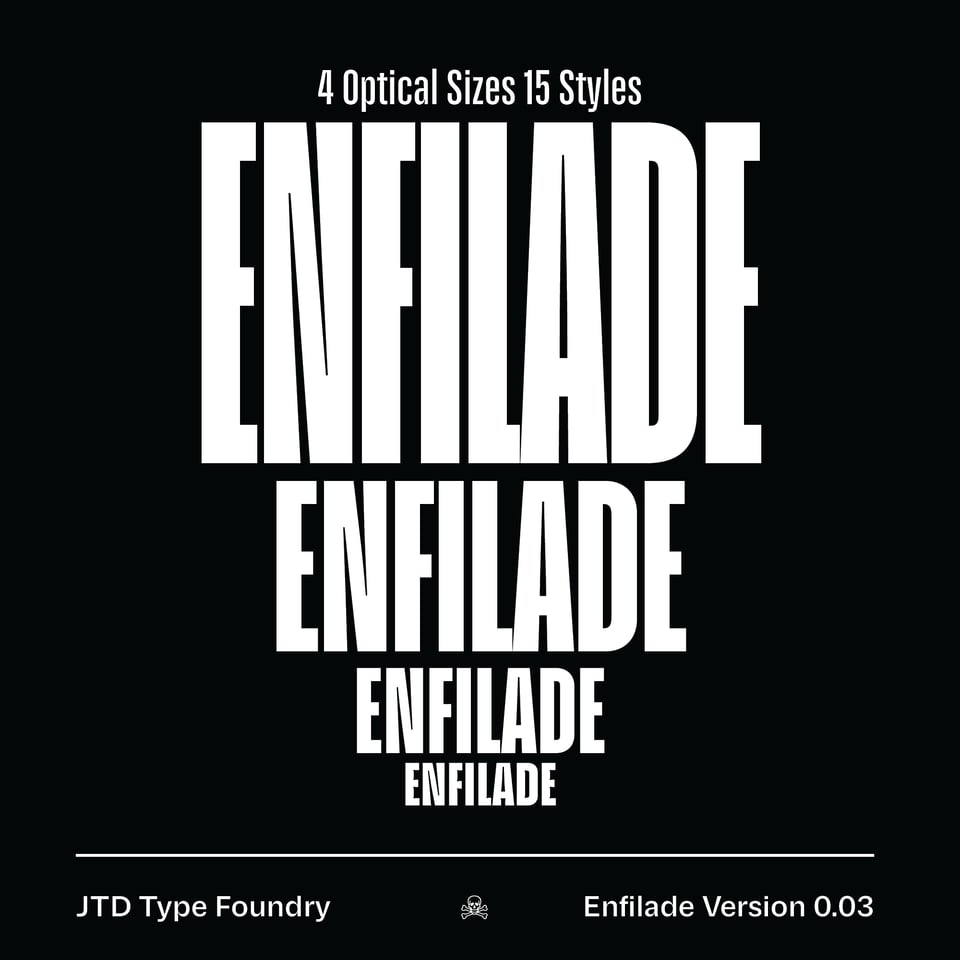
Enfilade was just updated over at FutureFonts. This newest update, version 0.003, includes a Black weight and brings the total up to 15 fonts in the Enfilade Family.
If you don’t know what the deal is with Enfilade, it’s a condensed sans serif (and a spiritual condensed version of our Parabolica sans serif), that has four optical sizes. Each optical size is designed to work at half the point size of the previous one.
This solves the problem of choosing a condensed typeface that only works at a few point sizes and it makes it really easy to use one typeface for all the text in your layout!